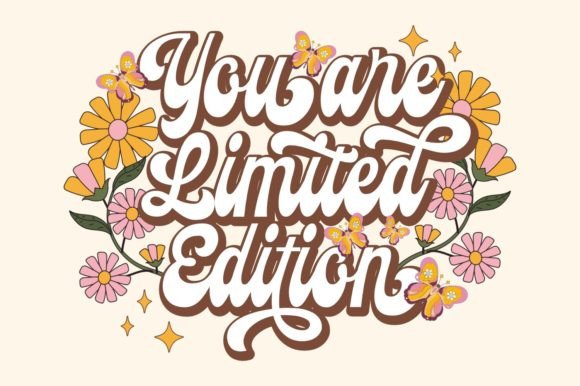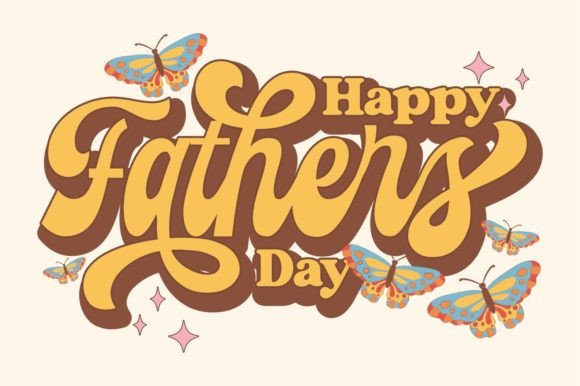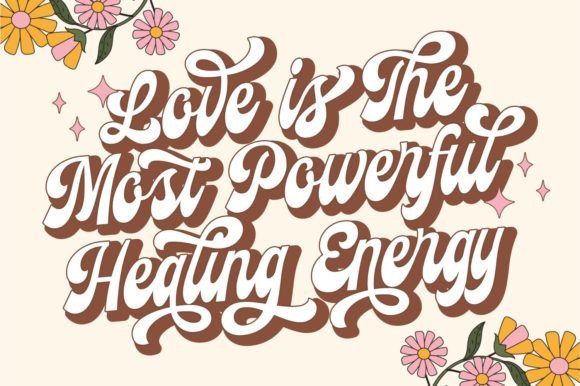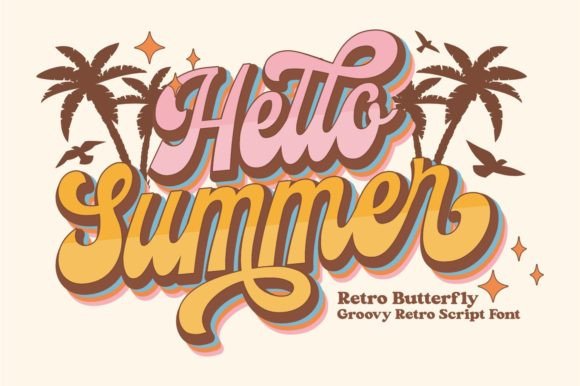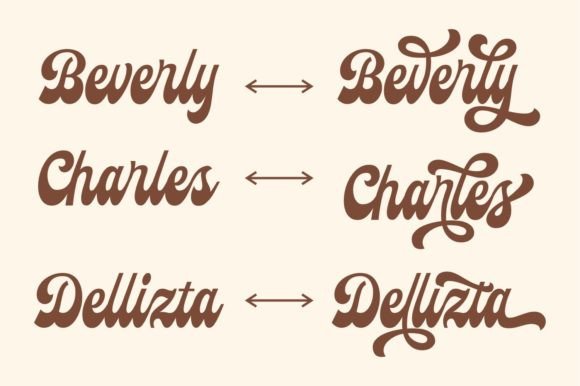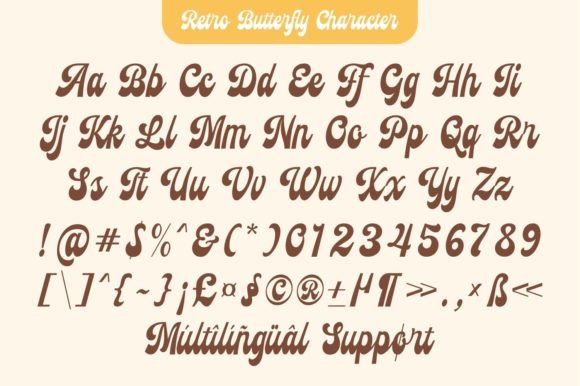
Introduction to Retro Butterfly Font
Retro Butterfly is a groovy retro script font with a sense of funk, fun, and free-spiritedness.
This font is characterized by its bold, flowing strokes and exaggerated curves, reminiscent of the hand-drawn lettering seen in vintage psychedelic posters and album covers The letters in the groovy retro script font are fluid and expressive, with unique flourishes and stylistic elements that give them a playful and energetic vibe.
Key Features of Retro Butterfly Font